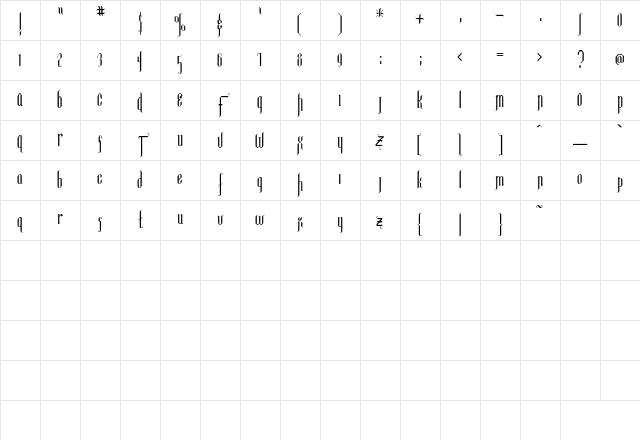
Luxembourg Regular
Luxembourg Family
Design Context for Luxembourg
Luxembourg is a composed and adaptable typeface that performs quietly and consistently across a wide range of design contexts.